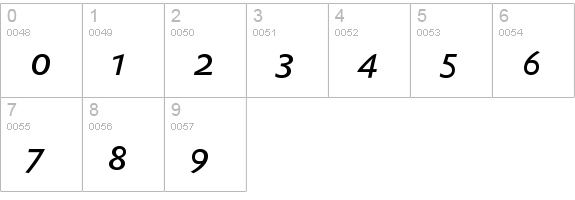
DTLProkyonTCaps Italic Font Details
DTLProkyonTCaps Italic is a distinctive, italic variant in the DTLProkyonTCaps typeface family \xE2\x80\x94 well suited to design and typography projects.
The DTLProkyonTCaps Italic font is a stylish and elegant typeface that exudes sophistication and modernity. Its sleek and slanted design adds a touch of flair to any project, making it perfect for creating eye-catching headlines or captivating logos. The italicized letterforms convey a sense of movement and dynamism, making this font ideal for projects that require a sense of energy and excitement. Best of all, the DTLProkyonTCaps Italic font is available for free download at FontsMarket.com. This means that you can easily access this high-quality typeface for all your design needs without any cost. Whether you're working on a professional presentation, a creative branding project, or simply looking to add a touch of elegance to your personal projects, the DTLProkyonTCaps Italic font is a versatile and versatile choice that won't break the bank. Download it today and elevate your design work to the next level!